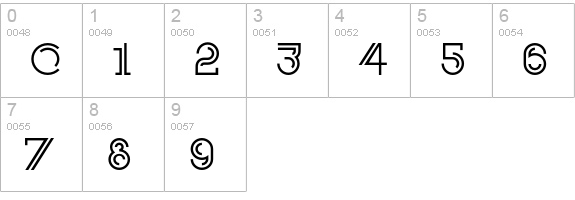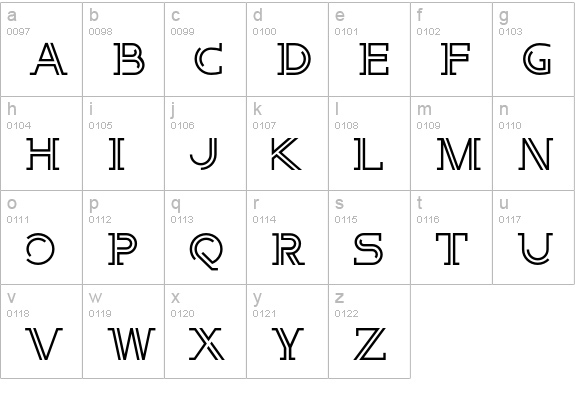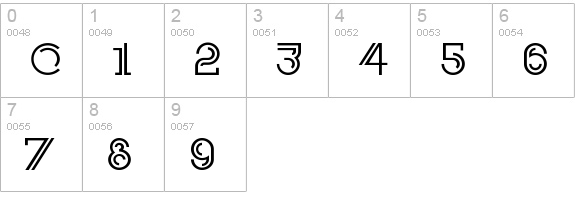
E-Line font is a modern and sleek typeface that exudes elegance and sophistication. Its clean lines and geometric shapes make it perfect for a wide range of design projects, from branding to editorial layouts. This versatile font is ideal for creating eye-catching headlines, logos, and signage. The best part? E-Line font is completely free to download at FontsMarket.com. That's right, you can add this stylish font to your collection without spending a dime. Don't miss out on the opportunity to enhance your design work with this fantastic typeface. Download E-Line font today and elevate your projects to the next level.